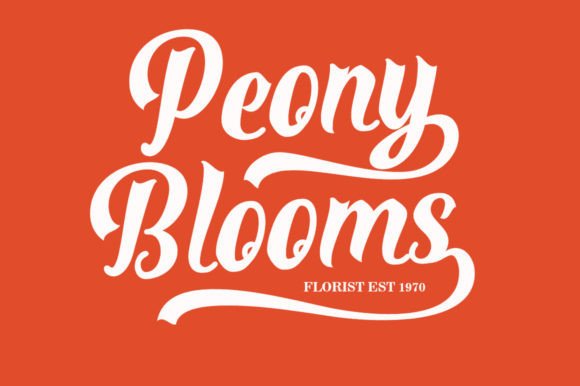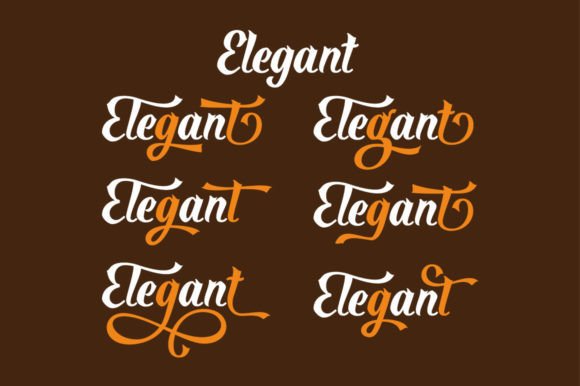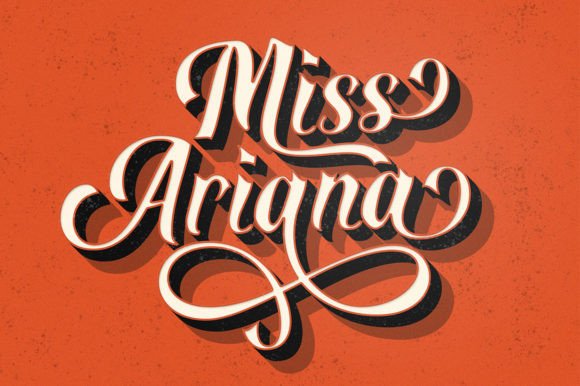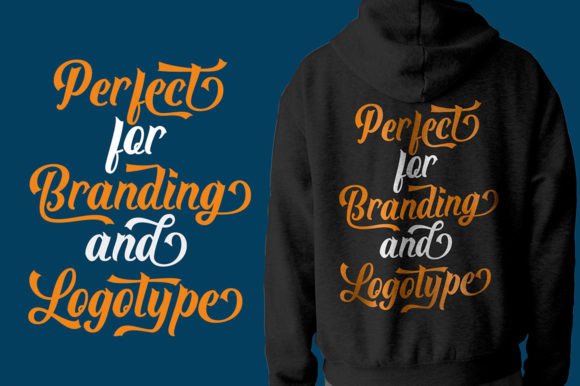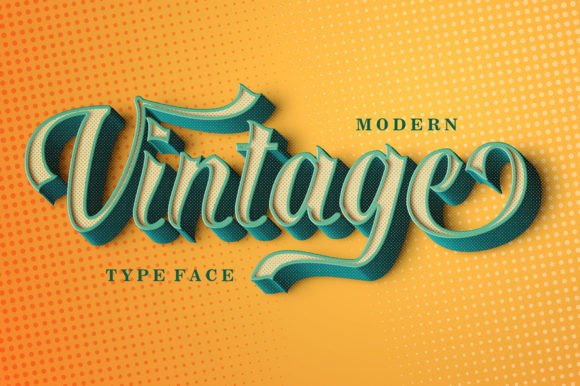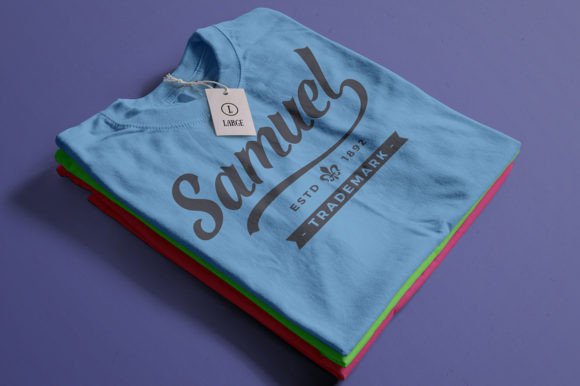
Introduction to Nagota Font Font
Fonts play a crucial role in design, and the Nagota Font font is a typeface that brings both character and versatility to any project. Whether you’re working on a branding project, a website, or a print design, the Nagota Font font offers a unique style that can elevate your work.
Nagota is a one-of-a-kind font that combines elegance and uniqueness.
Its ornate details and delicate letterforms make it perfect for adding a touch of elegance to wedding invitations, logos, and other design projects where a distinctive touch is desired It is also PUA encoded which means you can access all of the glyphs and swashes with ease.
Key Features of Nagota Font Font
Why Choose Nagota Font Font?
The Nagota Font font is more than just a typeface – it’s a design tool that helps you communicate your message with style and clarity. Its unique character set and versatile design make it suitable for a wide range of applications, from elegant invitations to bold headlines.
With its carefully crafted letterforms and balanced proportions, the Nagota Font font ensures readability and visual appeal across all mediums.
What makes Nagota Font font special?
The Nagota Font font stands out with its unique design, exceptional readability, and versatility across various design applications.